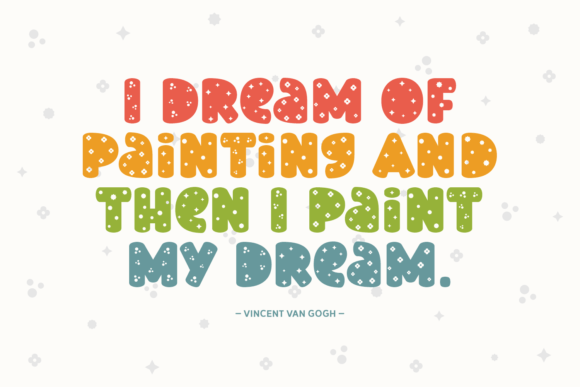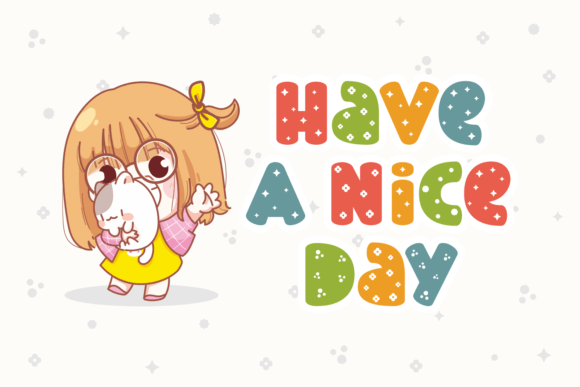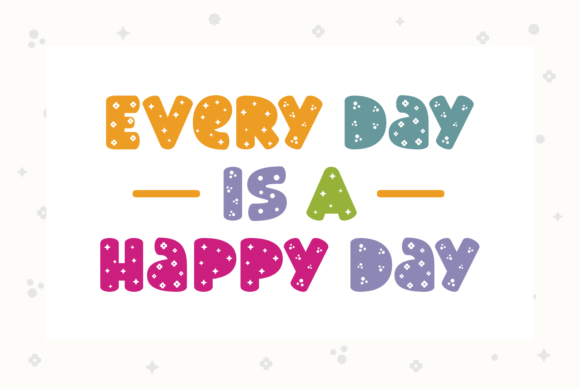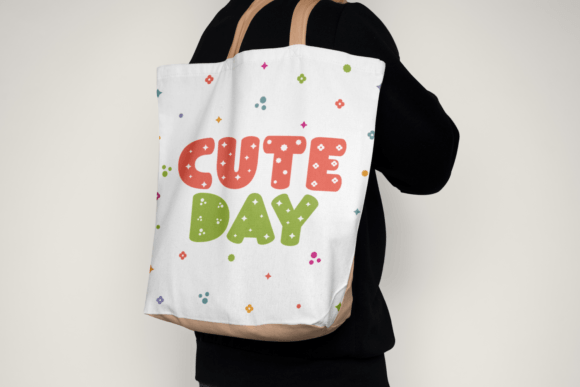
Getting Cuter Font: Add a Touch of Whimsy to Your Designs
Are you looking for a font that can add a dash of cuteness to your designs? Look no further than the Getting Cuter font! This adorable decorative font is perfect for designers and crafters who want to create playful and charming designs that capture the hearts of their audience. In this article, we’ll dive into the world of Getting Cuter font and explore its features, uses, and benefits.
What is Getting Cuter Font?
Getting Cuter is a decorative font that takes cuteness to the next level. Its chubby letters are adorned with charming little flowers and stars, adding a touch of whimsy to your text. The font is designed to be playful, fun, and eye-catching, making it perfect for designs that need a sprinkle of sweetness. Whether you’re creating invitations, greeting cards, or social media graphics, Getting Cuter font is sure to make your text bloom with delightful details.
Features of Getting Cuter Font
The Getting Cuter font has several features that make it stand out from other decorative fonts. Some of its key features include:
- Chubby letters: The font features chubby letters that are perfect for creating playful and whimsical designs.
- Charming little flowers and stars: The letters are adorned with charming little flowers and stars that add a touch of magic to your text.
- Decorative details: The font includes a range of decorative details, such as swashes and flourishes, that can be used to add extra flair to your designs.
- Easy to read: Despite its decorative nature, the Getting Cuter font is easy to read, making it perfect for use in a variety of designs.
Uses of Getting Cuter Font
The Getting Cuter font is perfect for a range of design projects, including:
- Invitations: Use the Getting Cuter font to create adorable invitations for parties, weddings, and other special occasions.
- Greeting cards: The font is perfect for creating cute and playful greeting cards for birthdays, holidays, and other celebrations.
- Social media graphics: Add a touch of whimsy to your social media graphics with the Getting Cuter font.
- Branding: Use the font to create a playful and charming brand identity that stands out from the crowd.
Benefits of Using Getting Cuter Font
There are several benefits to using the Getting Cuter font in your designs, including:
- Increased visual appeal: The font’s playful and whimsical design is sure to grab the attention of your audience.
- Emotional connection: The cute and charming design of the font can help create an emotional connection with your audience.
- Versatility: The font can be used in a range of design projects, from invitations to social media graphics.
Tips for Using Getting Cuter Font
Here are a few tips for using the Getting Cuter font in your designs:
- Use it sparingly: While the Getting Cuter font is adorable, it can be overwhelming if used too much. Use it sparingly to add a touch of whimsy to your designs.
- Pair it with other fonts: The Getting Cuter font pairs well with other fonts, such as sans-serif fonts. Experiment with different font combinations to find the perfect look for your design.
- Experiment with colors: The font looks great in a range of colors, from bright and bold to pastel and soft. Experiment with different colors to find the perfect look for your design.